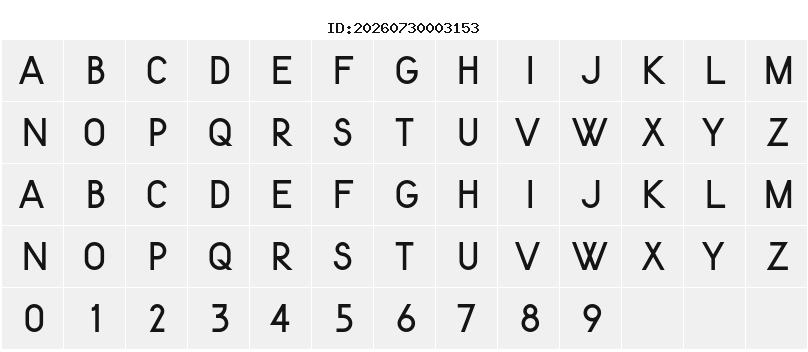
• Font Name: Kenteken Smits 1951
• Designer: LeFly
• Description: Gebaseerd op een werktekening van J. B. Smits uit 1937
About Kenteken Smits 1951.otf
Kenteken Smits 1951.otf is a modern, elegant sans-serif font designed for ultimate readability and visual harmony. Perfect for branding, headlines, web design, and print materials.